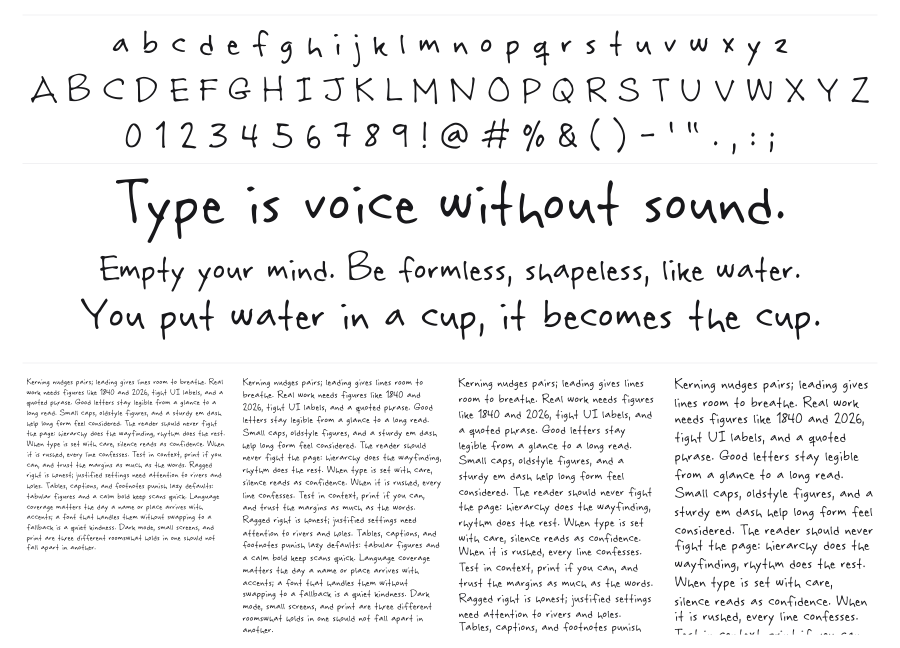
Rabiohead
Rabiohead is a casual, thin handwritten face from Pizzadude that captures the easy rhythm of someone jotting notes with a ballpoint pen. The lightweight strokes feel natural and unforced, with just enough variation to read as genuine handwriting rather than a font. A good pick for personal blogs, informal branding, or anywhere you want friendly, approachable type that doesn't call too much attention to itself.